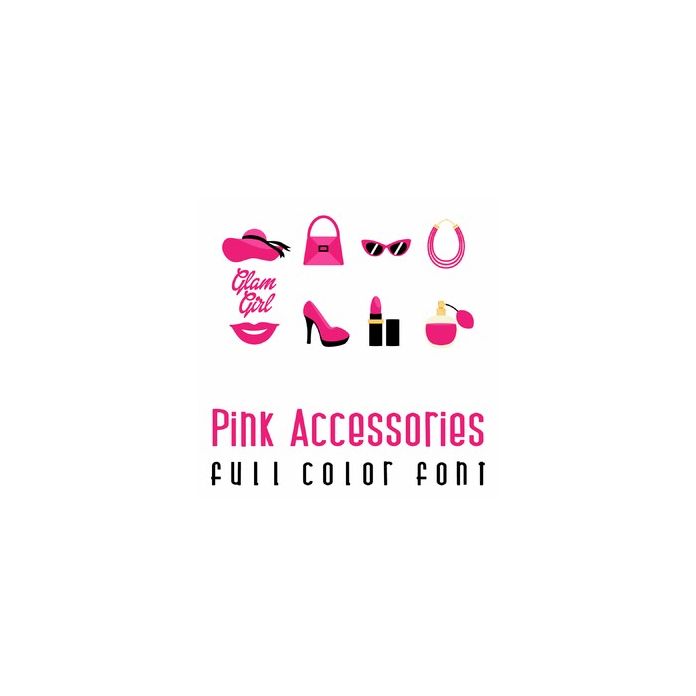
This adorable full-color doodlebat font features 26 fashionable accessories. Perfect for cards, crafts, gifts, decor, scrapbook pages, planner stickers, and more!